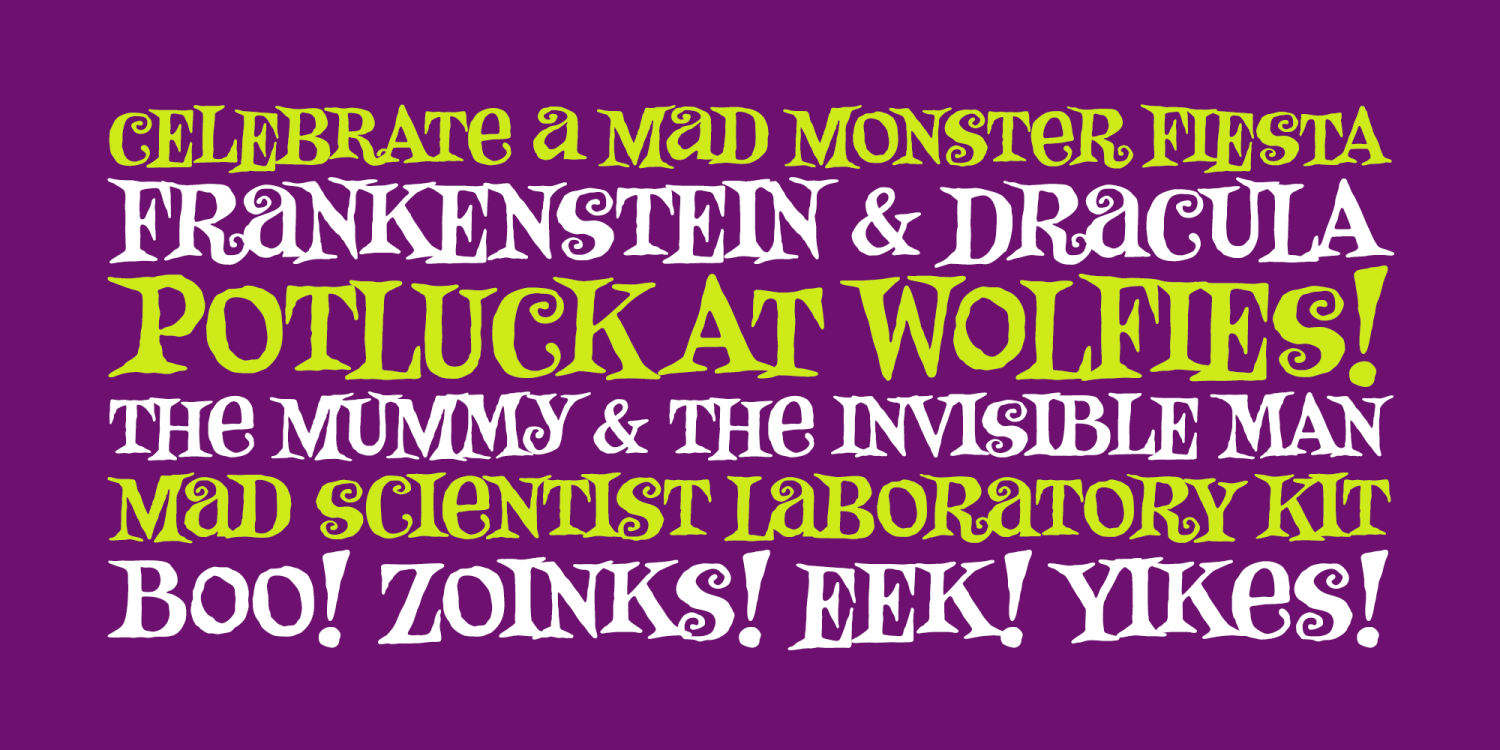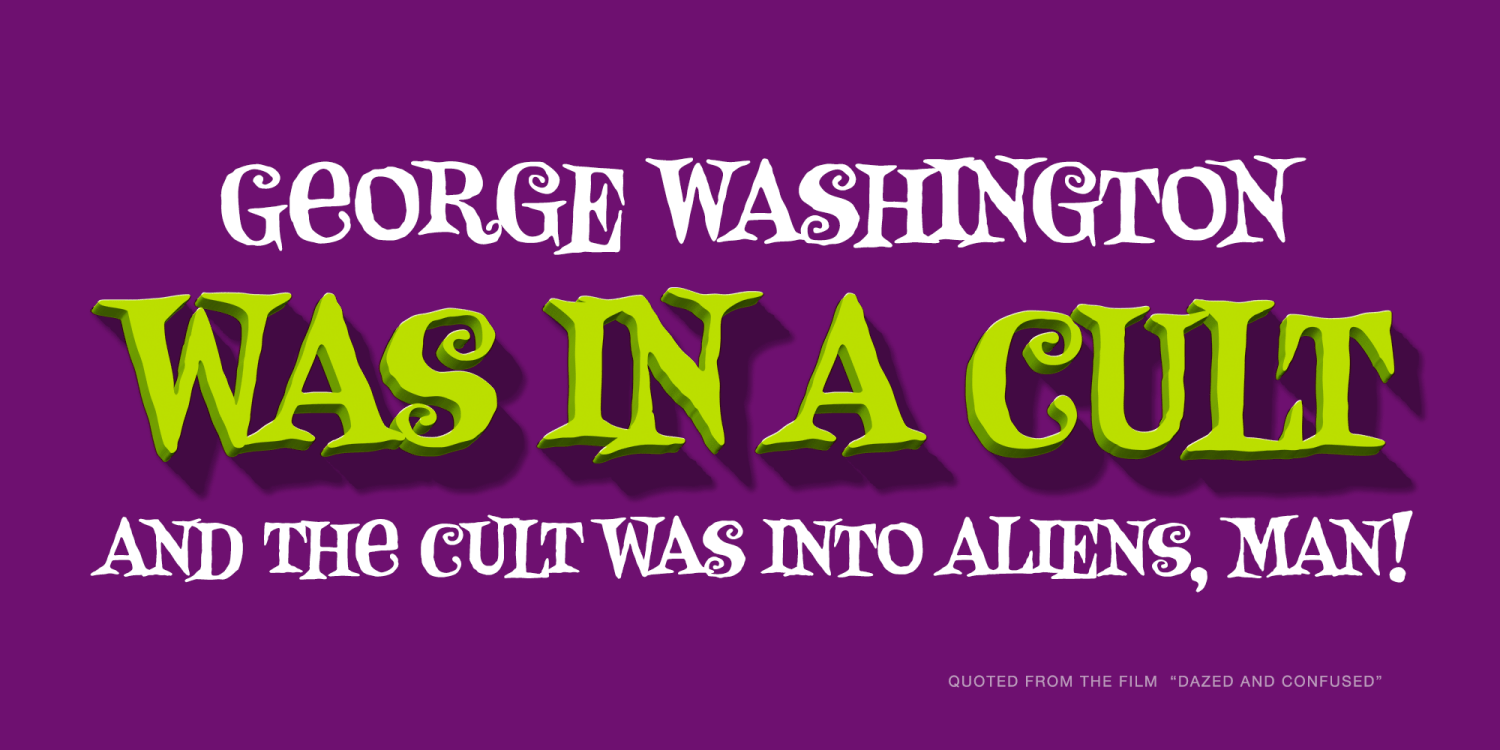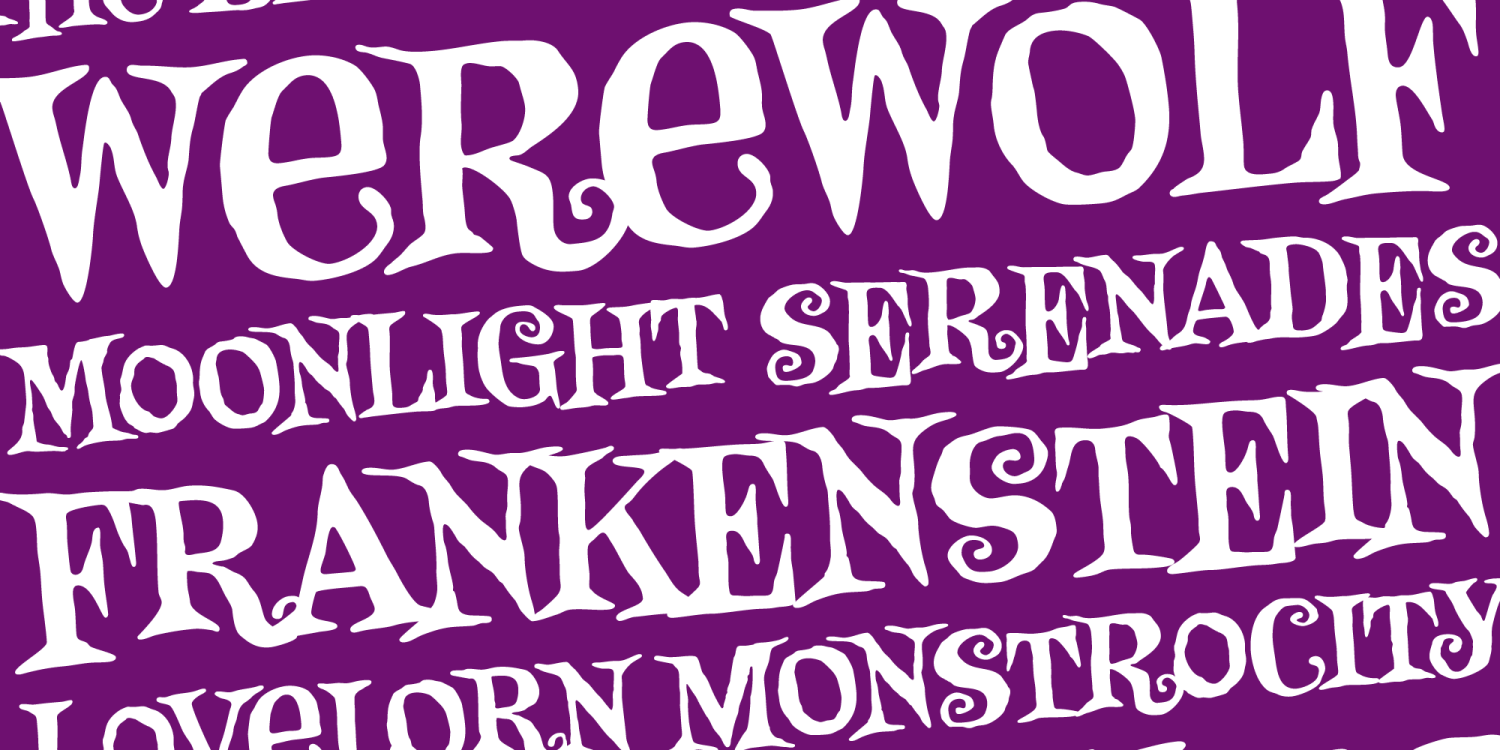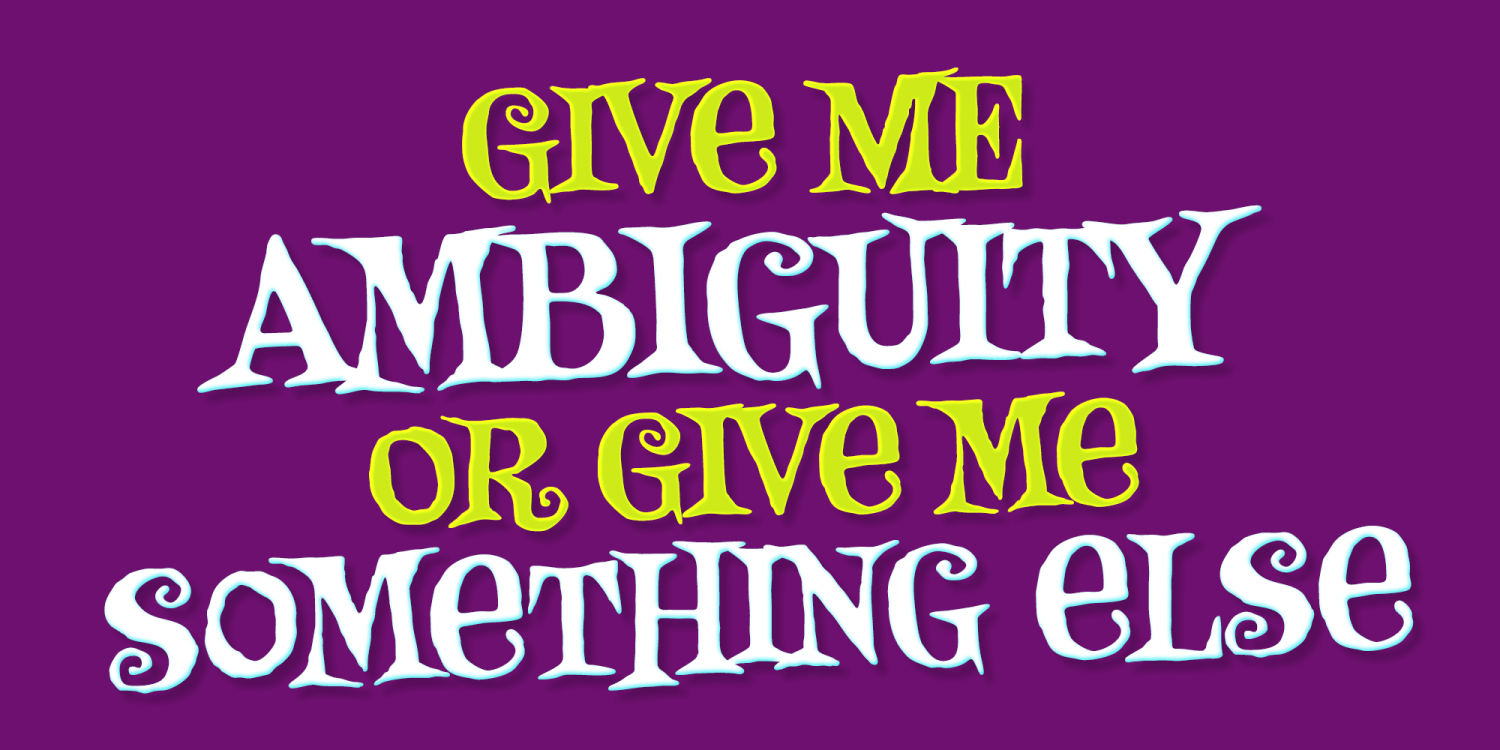
Monster Fiesta PB
Font Family by Pink Broccoli
An offbeat, fun, and frightful serif typeface inspired by the 1969 Rankin Bass animagic classic titled, "Mad Monster Party". This spooky, playful, and childish font comes with an extensive language set, a contextual alternates feature that randomizes alternations, as well as a stylistic alternates feature that can be turned on to select some alternates to Aa's, Ee's, Yy's, and more.